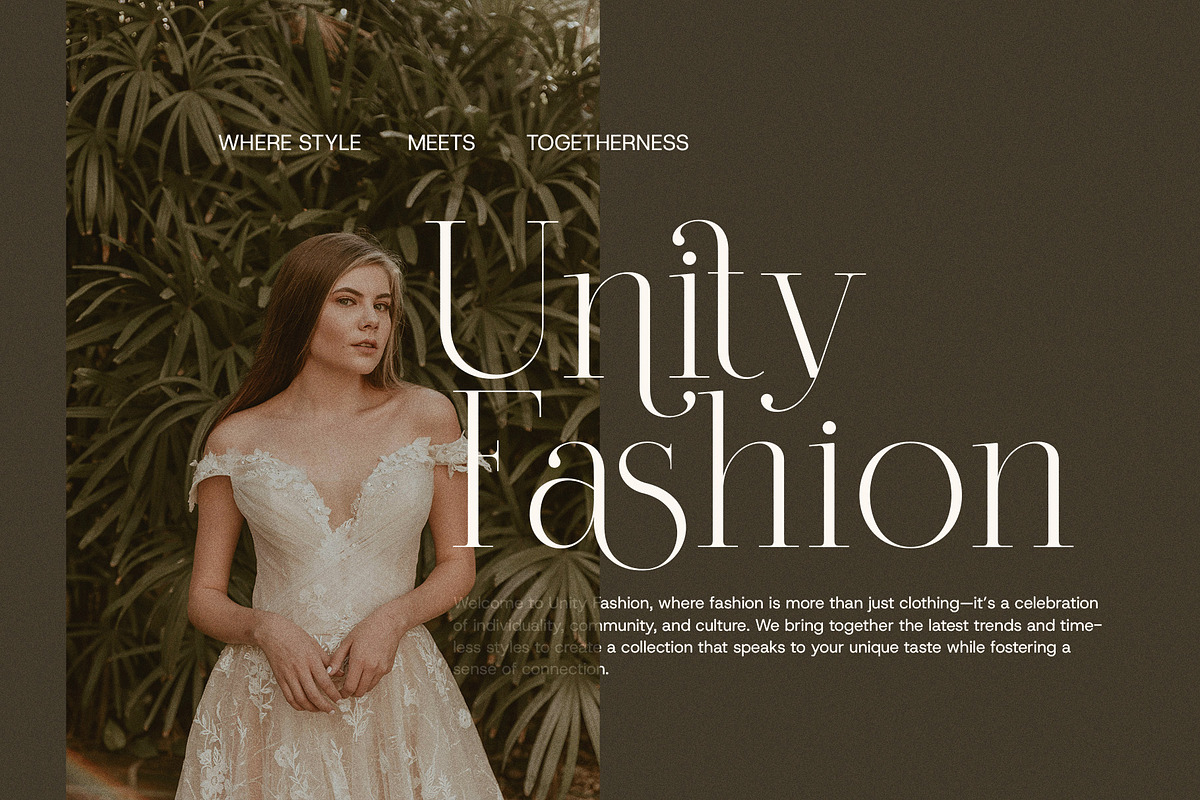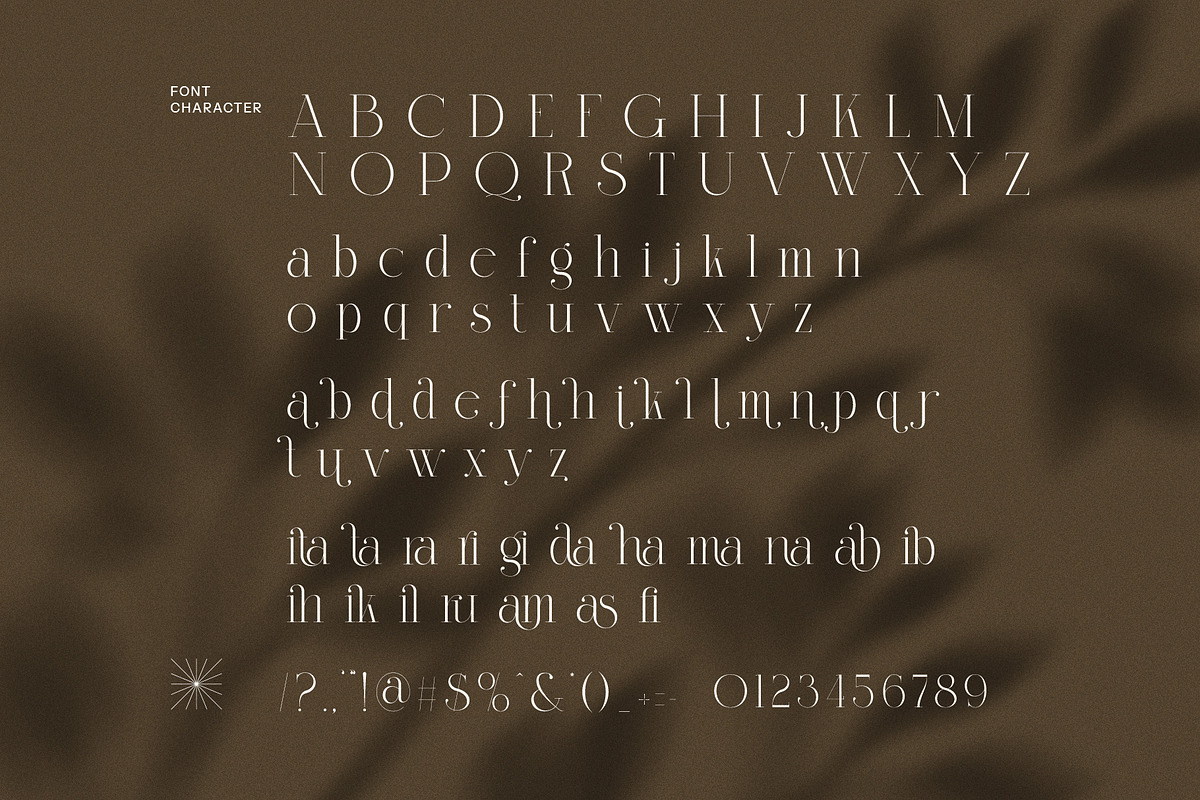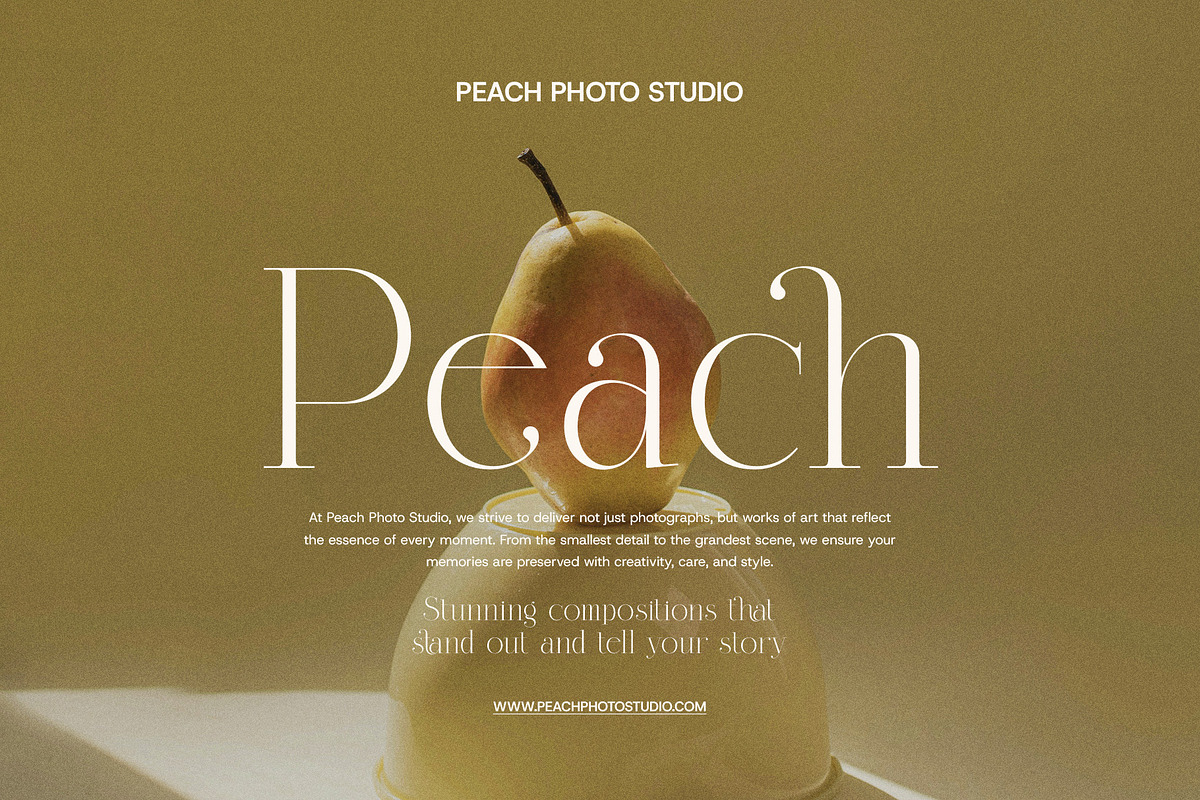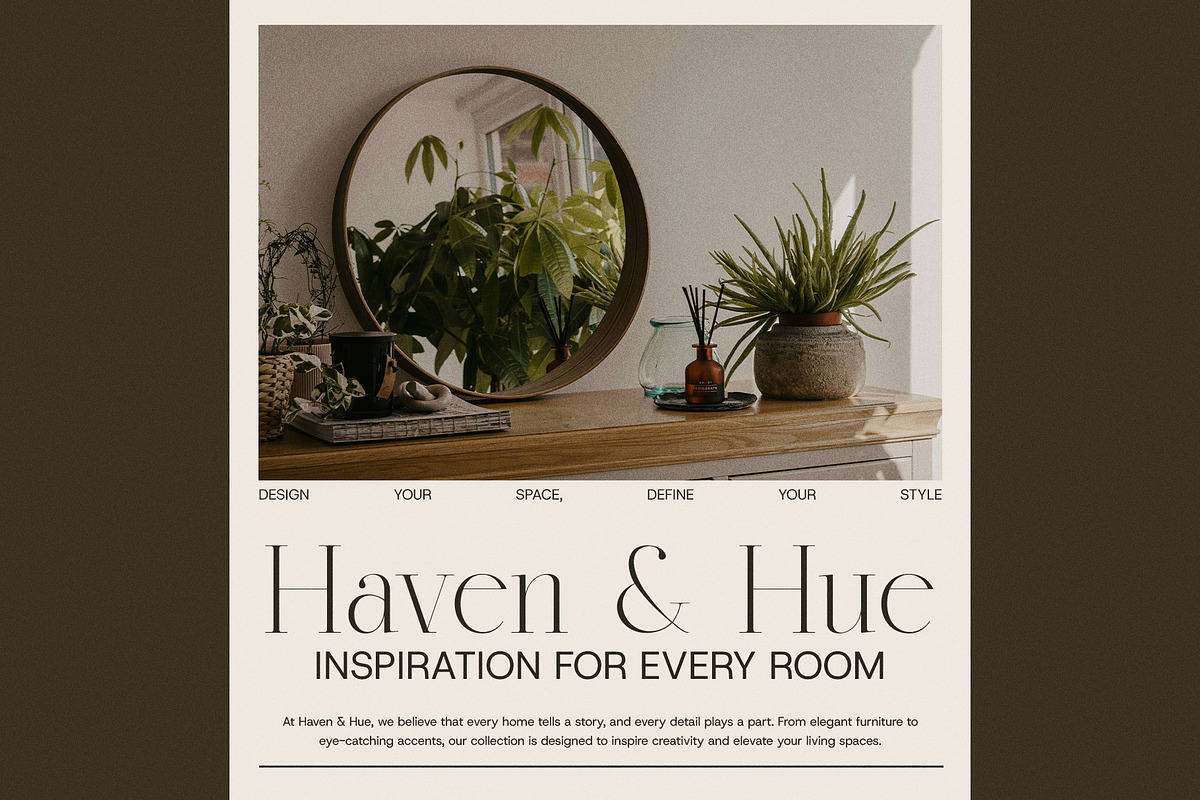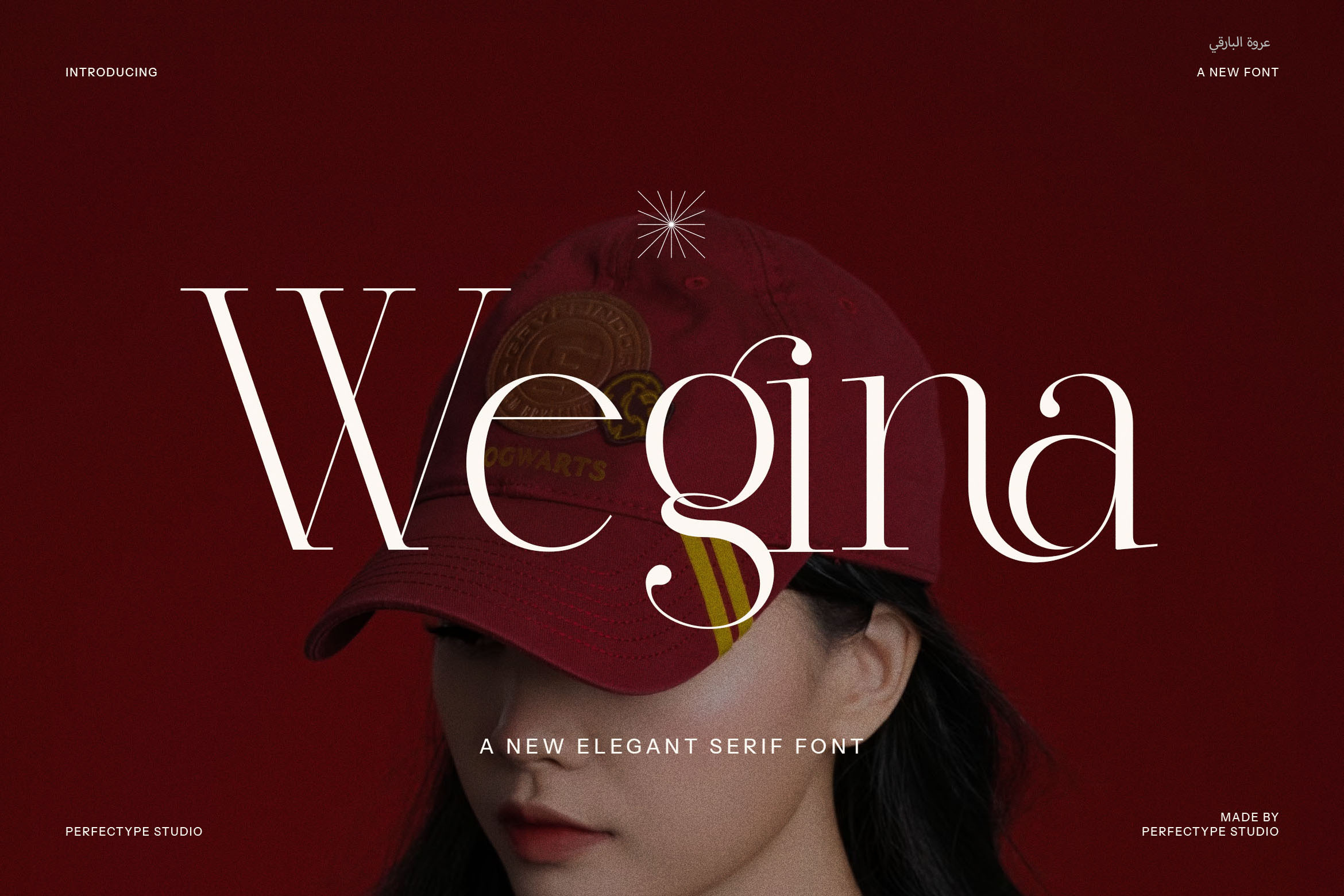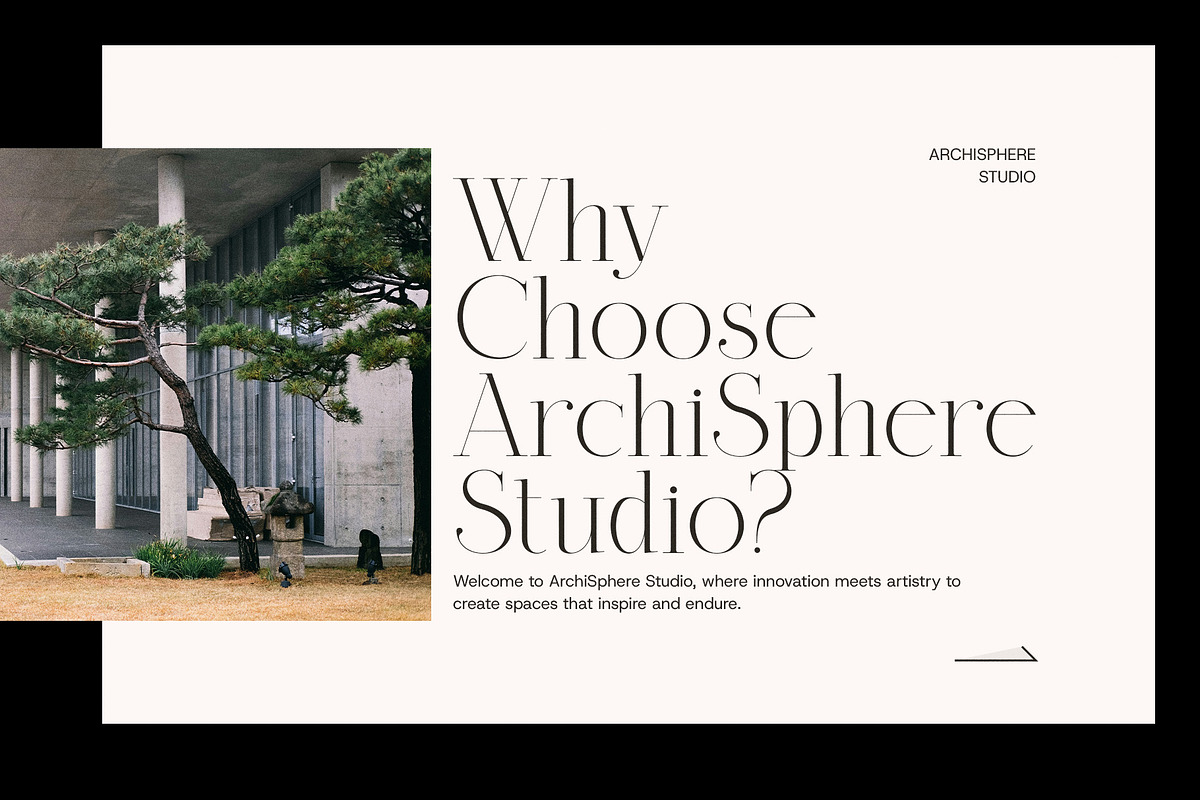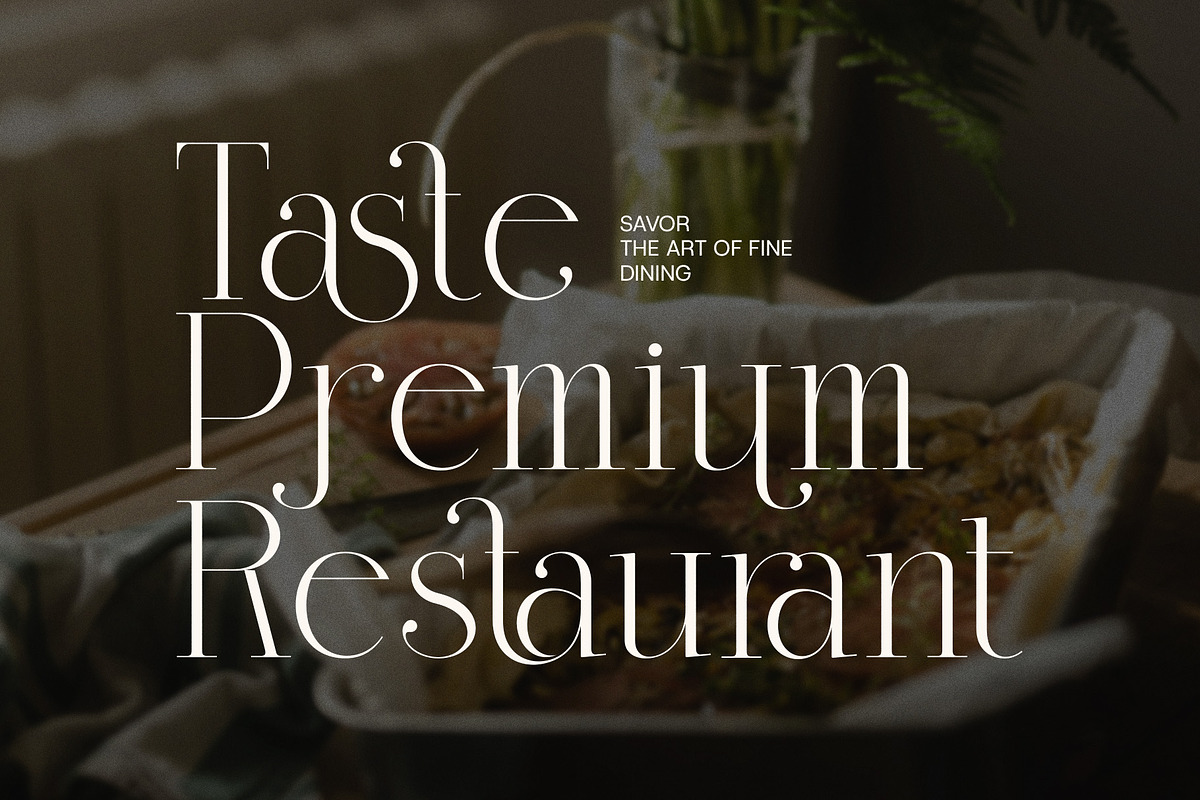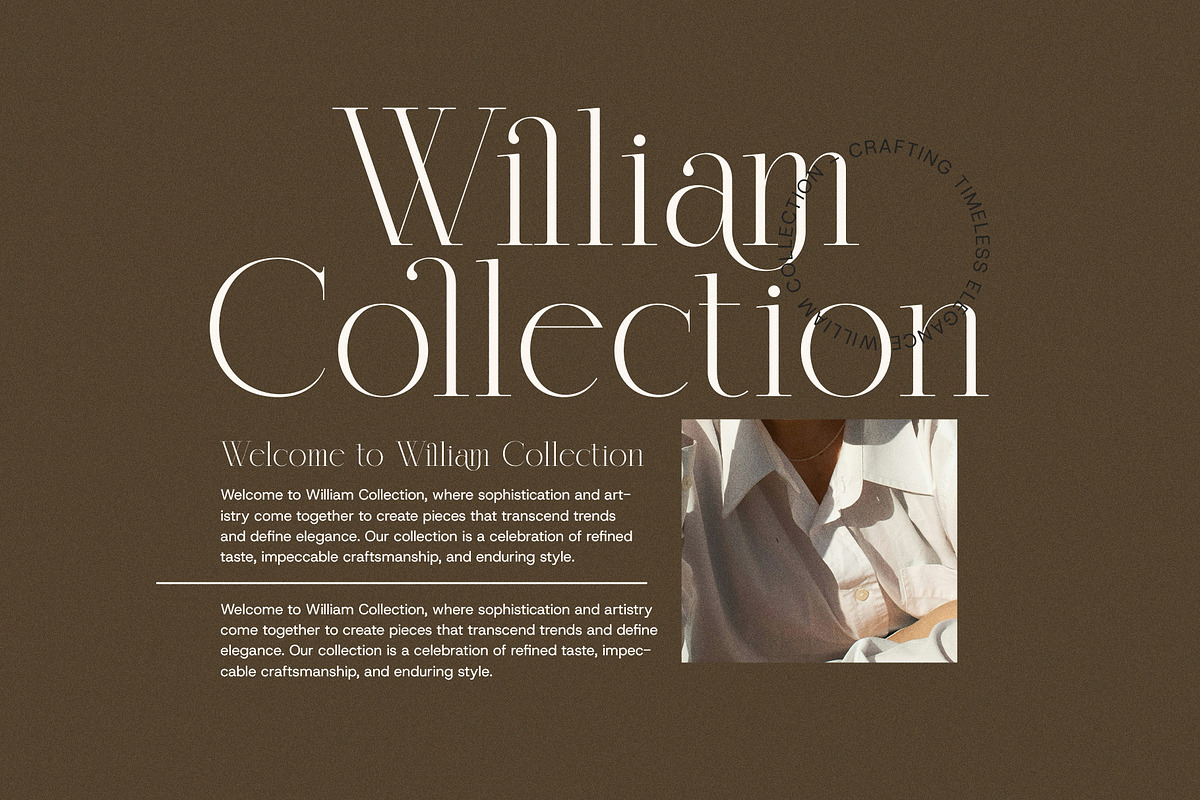
Wegina Minimal Serif Font
Introducing Wegina Minimal Serif Font, a refined and sophisticated typeface that brings a touch of elegance to any design. This modern serif font combines timeless style with a minimalistic approach, creating a clean, polished look that’s perfect for a wide range of creative projects. Whether you're designing logos, branding materials, websites, or magazine layouts, Wegina adds an element of grace and professionalism to your work.
Wegina stands out with its unique ligatures and alternate forms, giving you creative flexibility and helping your designs feel fresh and distinctive. These thoughtful details enhance the font’s overall appeal, ensuring that every word and letter exudes charm and refinement. The subtle serifs and carefully crafted letterforms strike a perfect balance between modern simplicity and classic elegance, making it an ideal choice for upscale brands, boutiques, restaurants, and lifestyle products.
This font’s versatility is key—it works seamlessly in both digital and print media. From high-end websites and advertisements to stylish product packaging and editorial spreads, Wegina offers superior legibility and a visually captivating style. Its minimalist approach makes it adaptable across various industries, from fashion and beauty to food and hospitality.
With its elegant yet contemporary aesthetic, Wegina Minimal Serif Font is the perfect tool to elevate your visual identity. Let this stylish serif font bring sophistication and modernity to your next creative project.